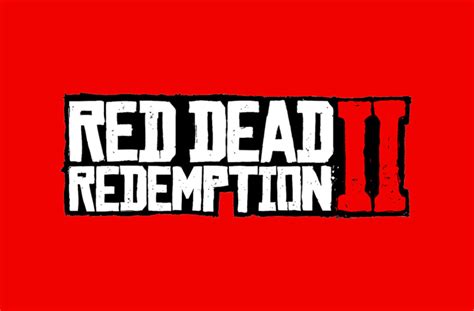
Red Dead Redemption 2 Font. And the catalogue, is the old american standard catalogue set. Web contact rockstar support and wait somewhere between 2 days and 2 weeks for them to tell you that they dont know how to fix it.
Web the custom font also comprises catchwords (logotype glyphs) for setting the words “red dead redemption ii”, with different forms for the repeating letters like e or d. Web it has since become a beloved classic and has spawned a sequel, red dead redemption 2, which was released in 2018. Organized means by hex, this is done to not truncate to ~1,000 files within github increasing usability. This font designed by typodermic fonts. (i mean, marston font, chinese rocks font.) Literally € by vladimir nikolic. Web new fonts latest updates everything. In the meantime update your gpu or spend that time you're waiting for rockstar's reply to reinstall. Web hey, i'm trying to localize the game into my native language, but i couldn't find a way to edit/mod the font files. Examples of the chinese rocks rg (red dead redemption 2) regular font can be found on the font site azfonts.